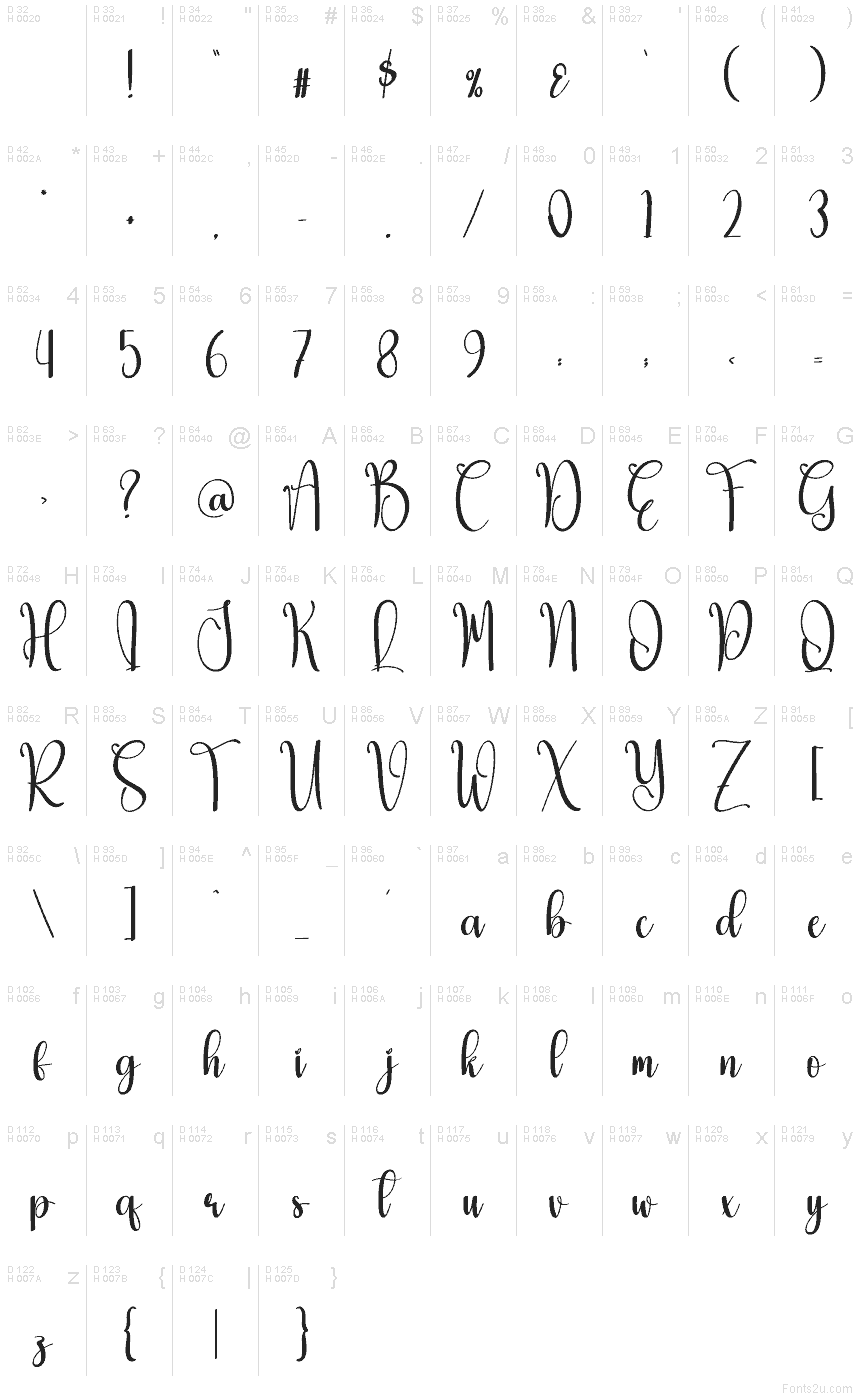
Artnical
Artnical font is a handwritten typeface by Scratchones that echoes elegance with a flowing and sophisticated style. Its artistic flair shines through decorative elements and refined script forms, making it visually appealing and unique. This free handwritten font brings charm to every project it touches.